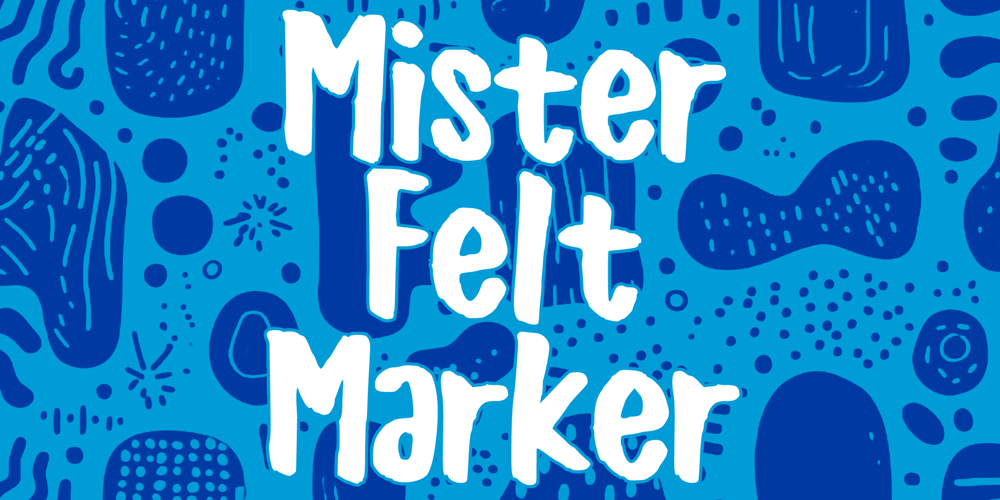
Mister Felt Marker Font Family was designed by Gabriel Valentinus and published by Mvmet. Mister Felt Marker contains 1 styles and family package options. Mister Felt Marker is a fun natural handwritten font made with real felt marker. It will elevate a wide range of design projects to the highest level. You can use this font for many design ideas such as stickers, t-shirt designs, amazing logo designs, magazine or book covers, comics, cartoon drawings, daily typing, and many more. This font will add a super cool touch to your designs!